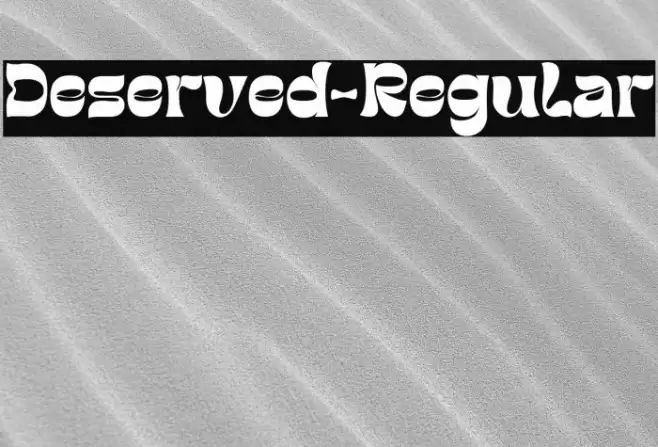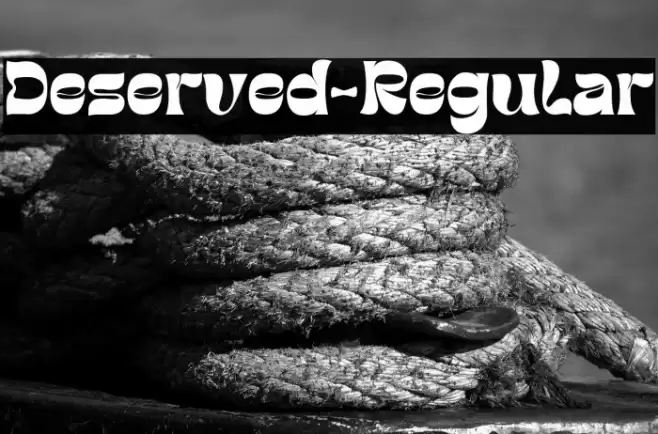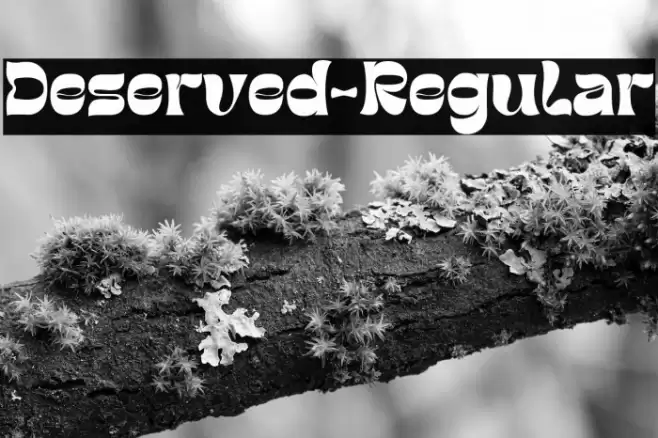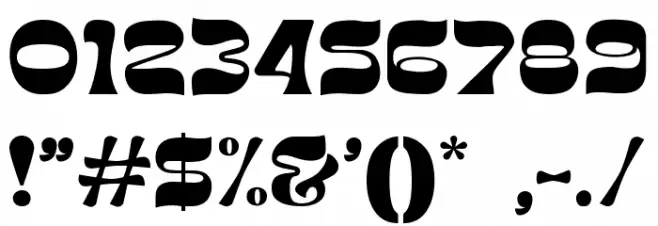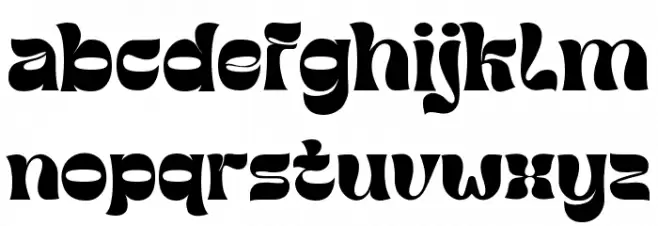
Deserved-Regular Font
Deserved-Regular Description
This font features a bold and dynamic design with a unique, artistic flair. The characters are crafted with a combination of thick and thin strokes, creating a high contrast that draws attention. The overall style is decorative, with each letter exhibiting a playful and creative form. The uppercase and lowercase letters maintain a consistent style, while the numerals and special characters complement the alphabet with their bold presence. The font's distinctiveness makes it ideal for projects that require a standout visual impact.
A bold, decorative font with high contrast and artistic flair from Uncategorized fonts.
- Proposed Projects: Ideal for posters, branding, album covers, and creative design projects.
- Contrast: High